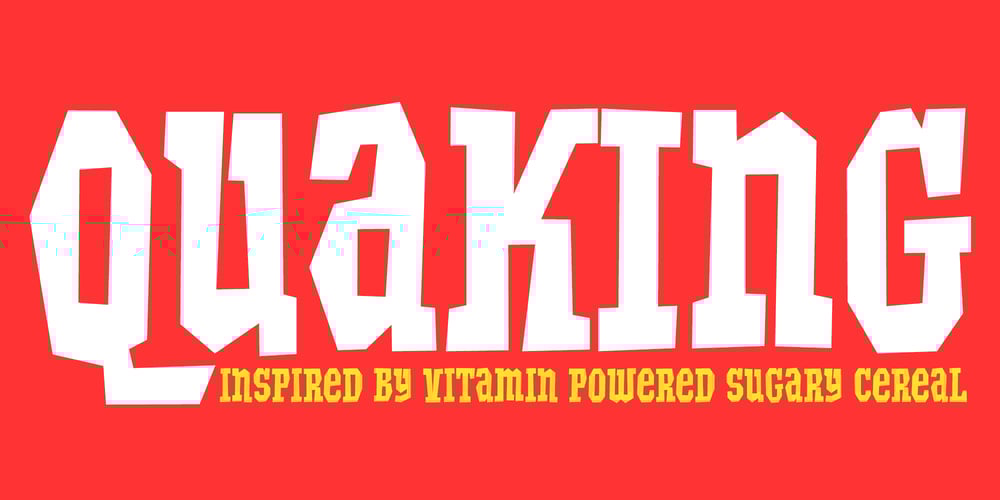
Quaking Font Family was designed by Sawyer Hume and published by Fontasmic. Quaking contains 1 styles and family package options. Quaking was inspired by the lettering on the Quake cereal from Quaker (1965-1973) – those “wonderful wheelies of corn and oats… buzzin’ with honey and bustin’ with earthquake power.” Quaking tries to capture that ruckus style of lettering that was so signature on the box.Quaking has a unicase letterset which mixes default and alternate versions of capitals and lowercase mixed together.